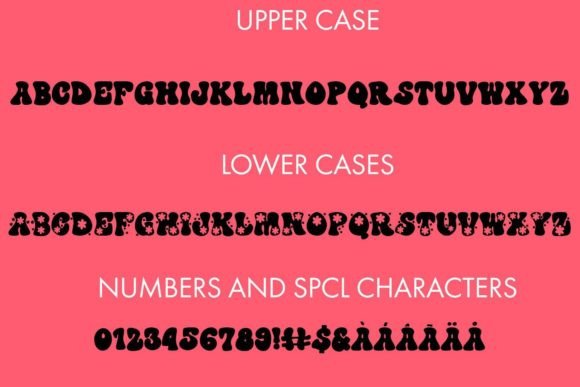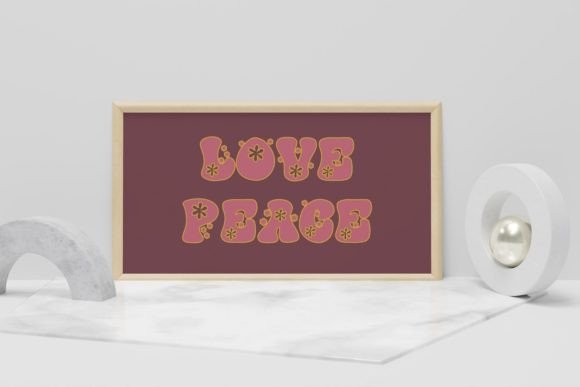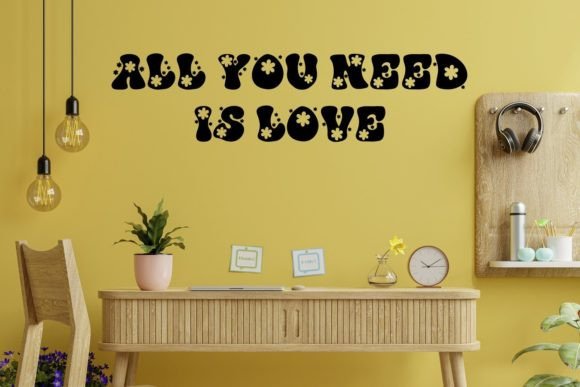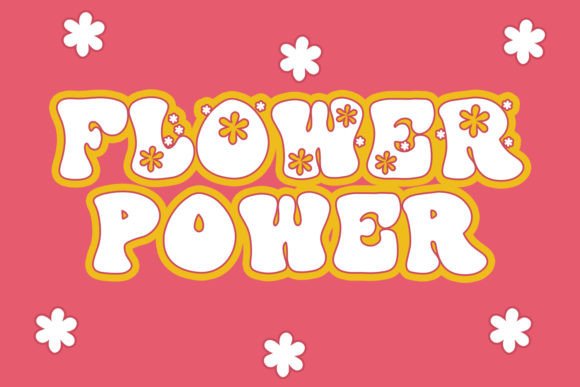
Unleash Your Inner Hippie with Flower Power Font
Are you looking for a font that embodies the free-spirited and playful vibe of the 1960s? Look no further than the Flower Power Font! This fun and quirky handwritten font is perfect for designers and crafters who want to add a touch of nostalgia and whimsy to their projects. In this article, we’ll dive into the world of Flower Power Font and explore its features, uses, and benefits.
What is Flower Power Font?
Flower Power Font is a unique and eye-catching handwritten font that captures the essence of the hippie era. Its playful and carefree design makes it perfect for projects that require a fun and quirky touch. The font features bold lines, irregular shapes, and a dash of playfulness, making it a standout choice for designers and crafters who want to add some personality to their work.
Features of Flower Power Font
- Handwritten design: Flower Power Font has a genuine handwritten look that gives it a personal and relatable feel.
- Quirky and playful: The font features irregular shapes and bold lines that add to its playful and whimsical nature.
- Perfect for DIY projects: Flower Power Font is ideal for crafters and makers who want to add a touch of personality to their DIY projects.
- Groovy and nostalgic: The font’s design is inspired by the 1960s, making it perfect for projects that require a retro or vintage vibe.
Uses of Flower Power Font
Flower Power Font is versatile and can be used for a wide range of projects, including:
- DIY crafts: Use Flower Power Font to add a personal touch to your DIY crafts, such as scrapbooking, card making, and journaling.
- Graphic design: The font is perfect for graphic design projects, such as creating posters, flyers, and brochures with a retro or vintage vibe.
- Social media graphics: Add a touch of whimsy to your social media graphics, such as Instagram posts and Facebook covers, with Flower Power Font.
- Wedding and event planning: Use the font to create unique and eye-catching wedding and event invitations, decorations, and signage.
Benefits of Using Flower Power Font
Using Flower Power Font can bring several benefits to your design projects, including:
- Unique and eye-catching design: The font’s playful and quirky design makes it stand out from more traditional fonts.
- Emotional connection: The font’s nostalgic and retro vibe can evoke emotions and create a connection with your audience.
- Versatility: Flower Power Font can be used for a wide range of projects, from DIY crafts to graphic design.
Tips for Using Flower Power Font
Here are some tips for getting the most out of Flower Power Font:
In conclusion, Flower Power Font is a fun and quirky handwritten font that is perfect for designers and crafters who want to add a touch of nostalgia and whimsy to their projects. Its playful and carefree design makes it ideal for DIY projects, graphic design, and social media graphics. With its unique and eye-catching design, emotional connection, and versatility, Flower Power Font is a great addition to any design toolkit.